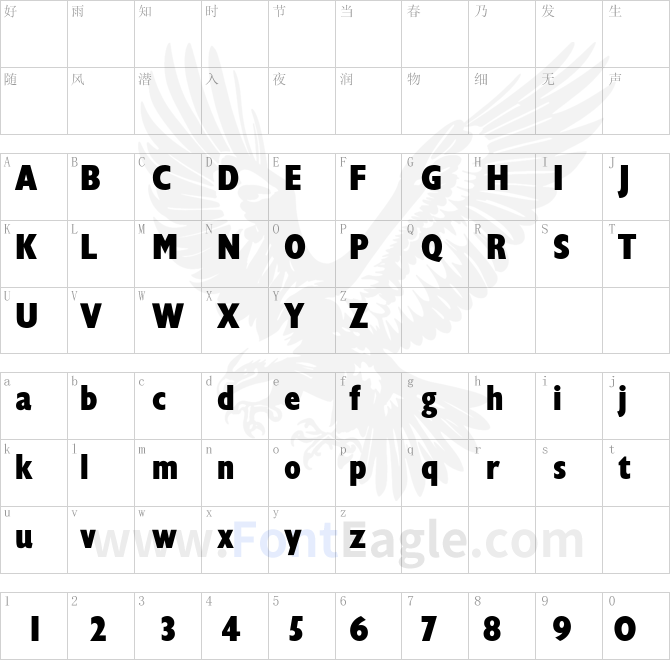
GarrisonSans-ExtraBoldCond is a great font, widely used in graphic design, single-page menu design, poster design and other fields, and is deeply loved by designers.GarrisonSans-ExtraBoldCond download.